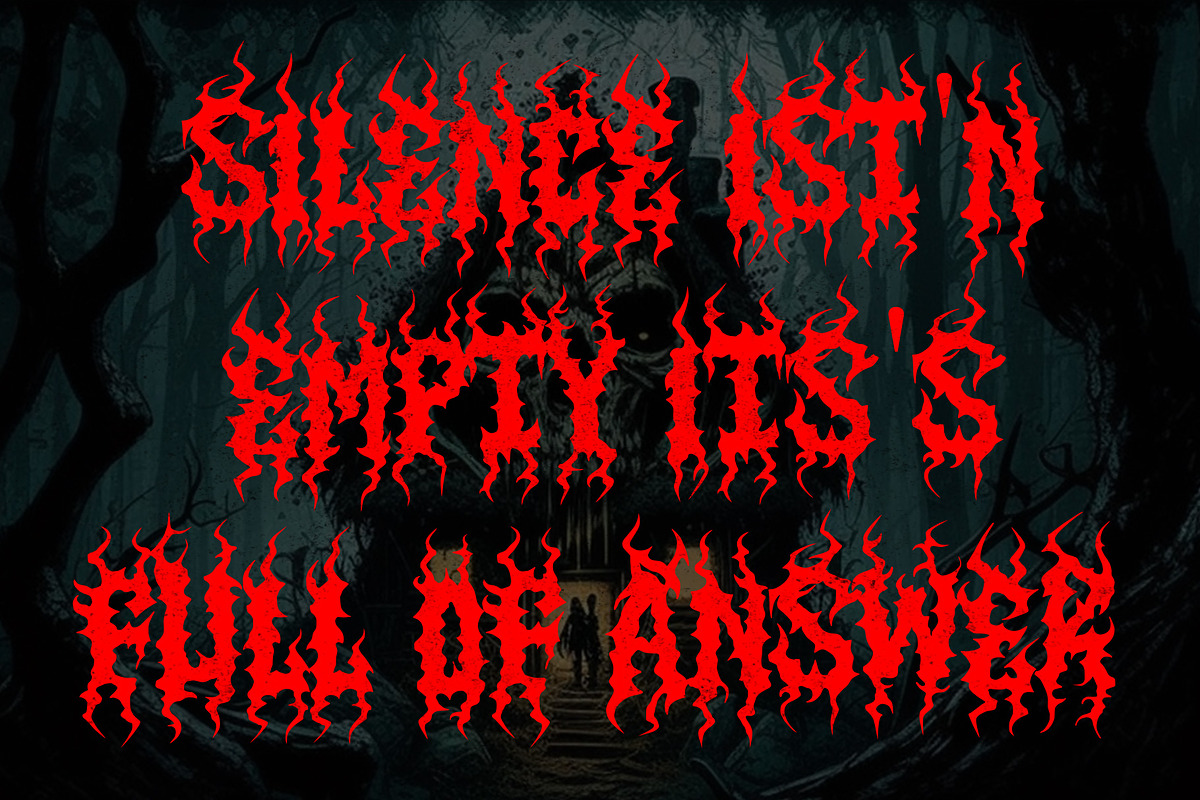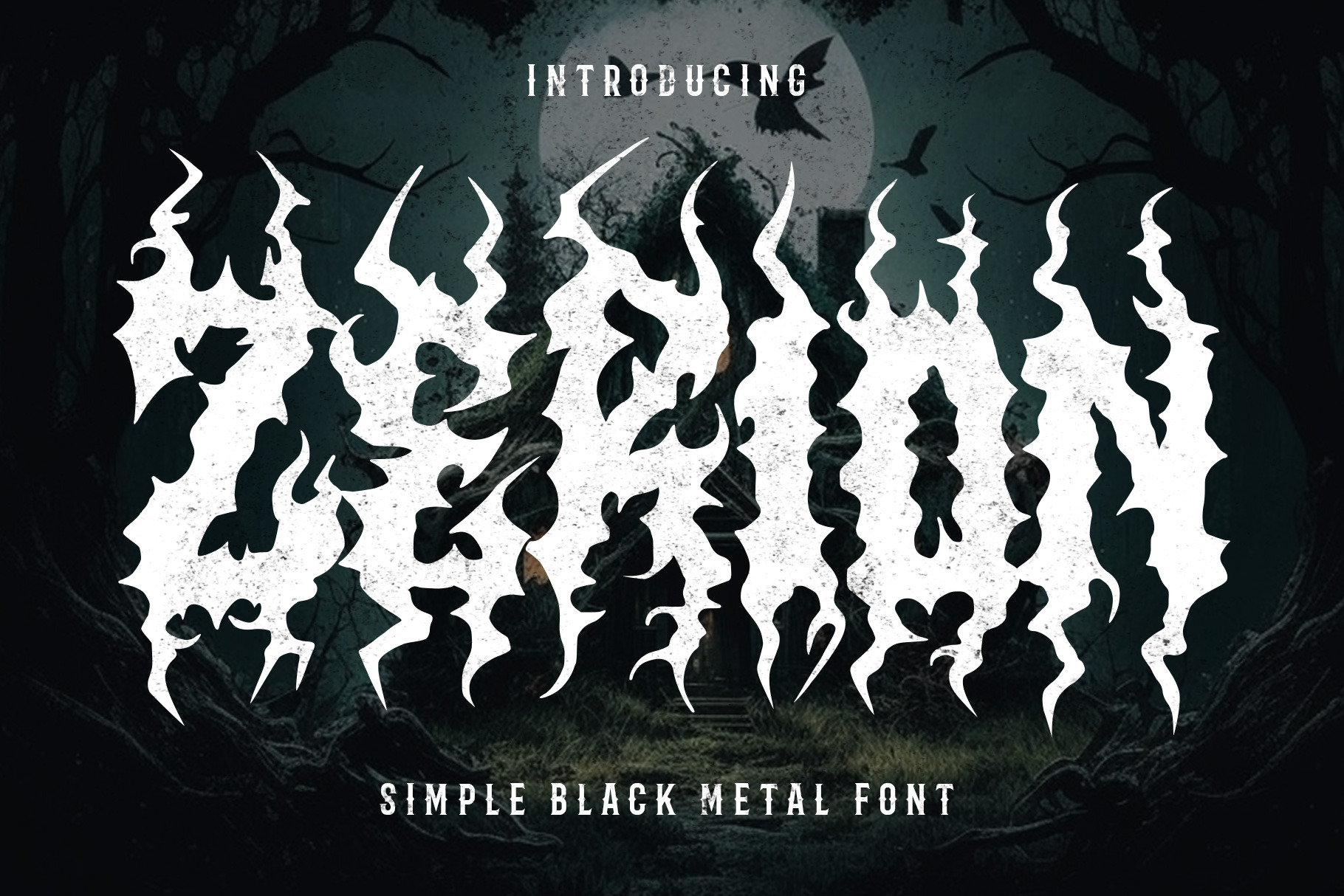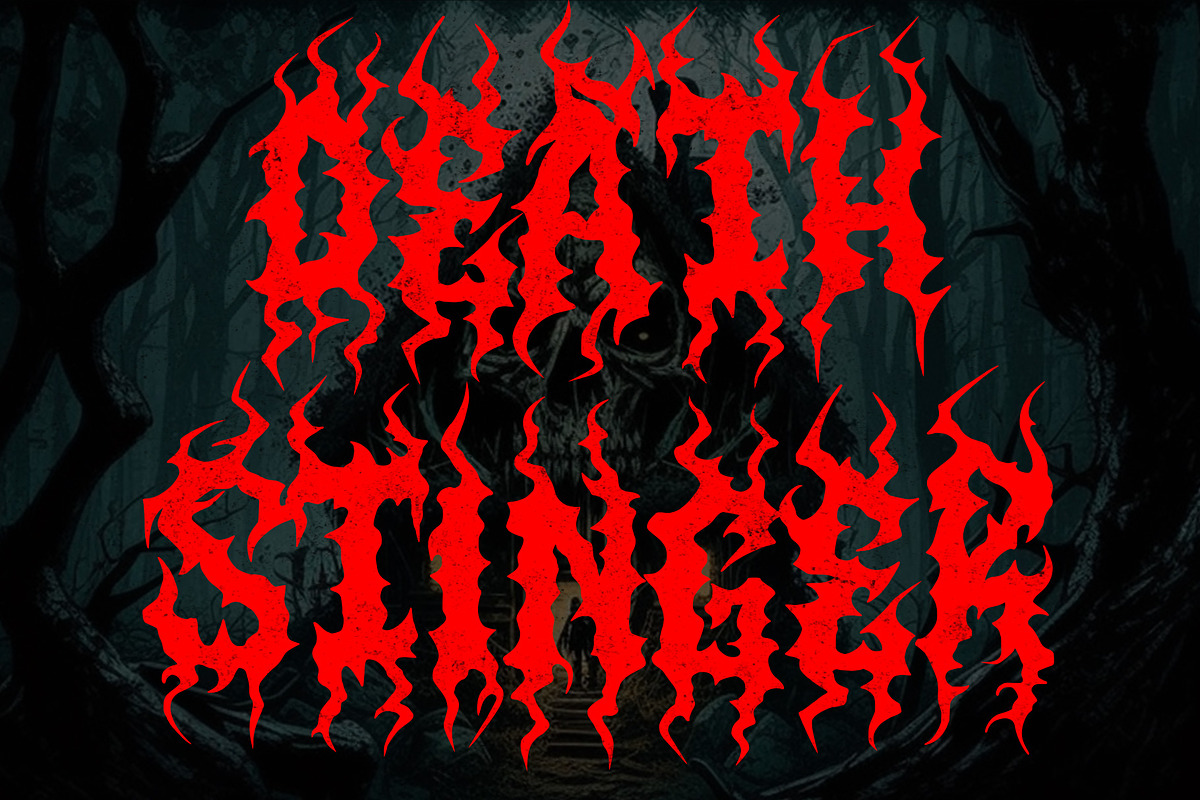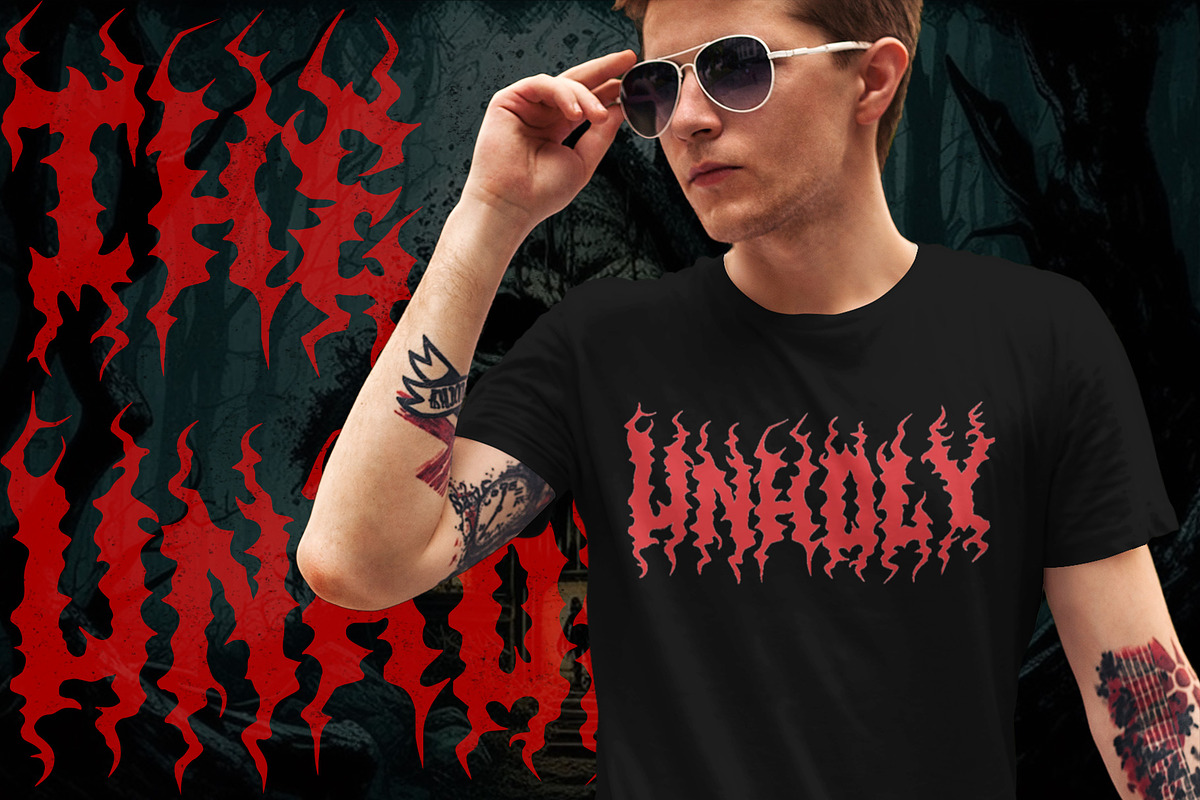
ZERION - Black Metal Font
Introducing Zerion, our bold and powerful font inspired by the intense and dark world of black metal music. With its sharp and angular design, Zerion is perfect for creating designs that capture the essence of the black metal scene.
Zerion's unique and distinctive style will help your designs stand out from the crowd, with its jagged lines, sharp angles, and bold shapes. Whether you're creating album art, designing merchandise, or promoting a concert, Zerion will give your designs a memorable look that captures the spirit of black metal music.